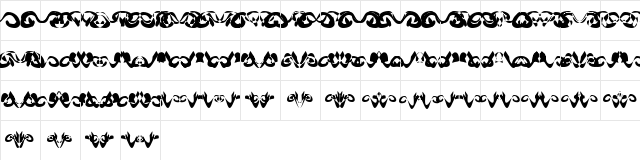
Hidden Ghosts Font Preview
Hidden Ghosts is a composed and adaptable typeface that performs quietly and consistently across a wide range of design contexts.